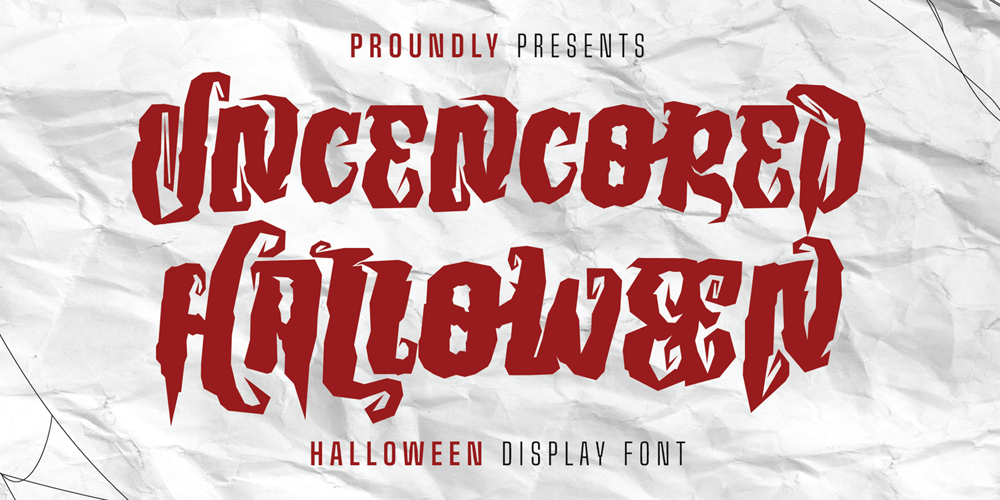
Uncencored Halloween Font Family was designed by Amrullah Medan, Amrullah, Dedi Purwanto and published by Ably Creative. Uncencored Halloween contains 1 styles and family package options. Uncensored Halloween is a cute font for Helloween. Expertly designed to become a true favorite, this font has the potential to take your every creative idea to the highest level! Add it to any of your Halloween-related designs and see how to make it come alive, add this font to your creative ideas and see how to make it so scary. An uncensored Halloween font, eye-catching, cute horror-style font for you to use in your future projects. With this unique font, you’re sure to make your designs stand out!